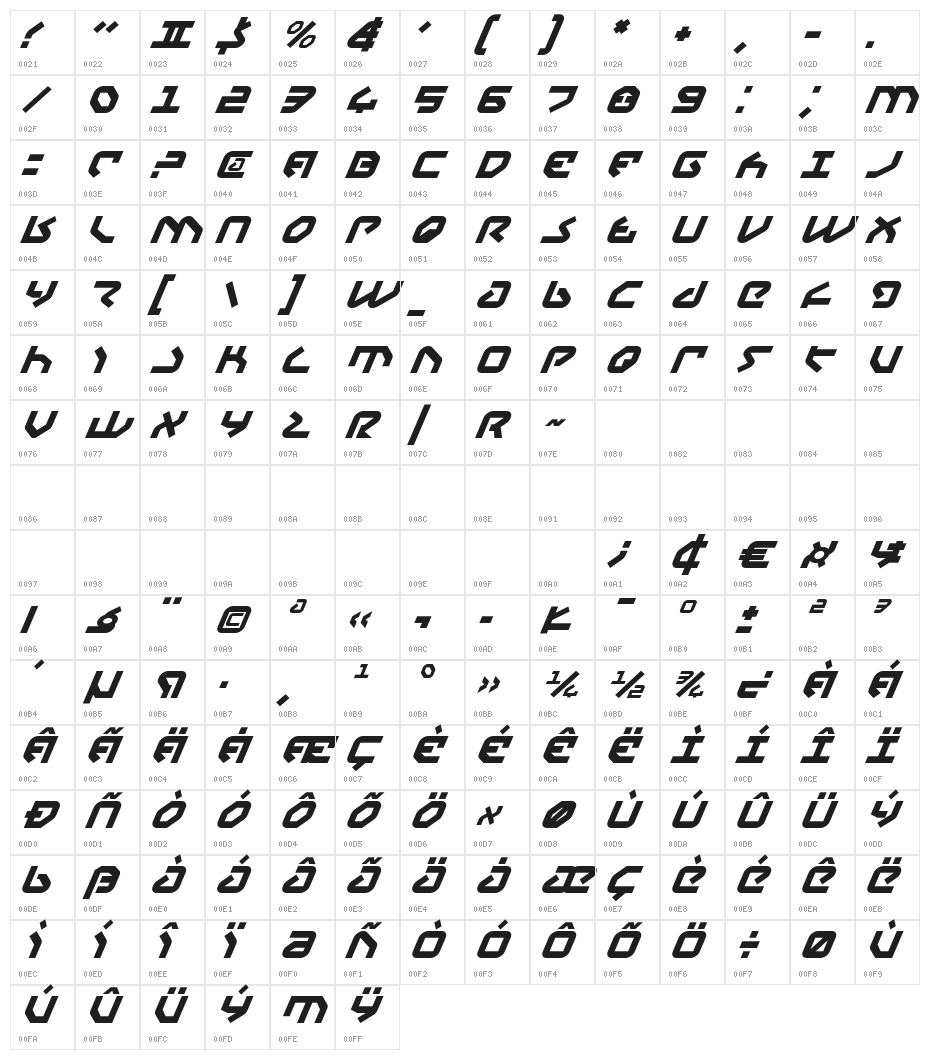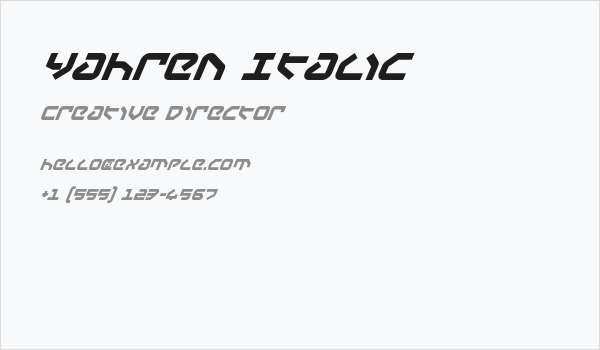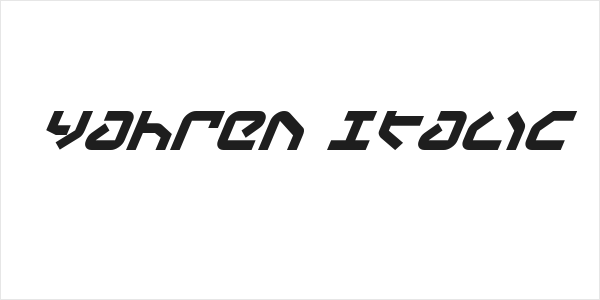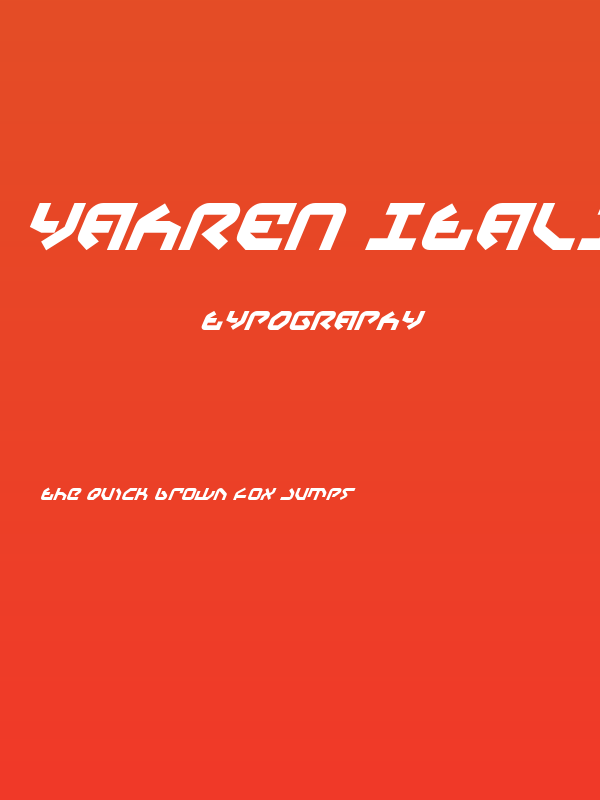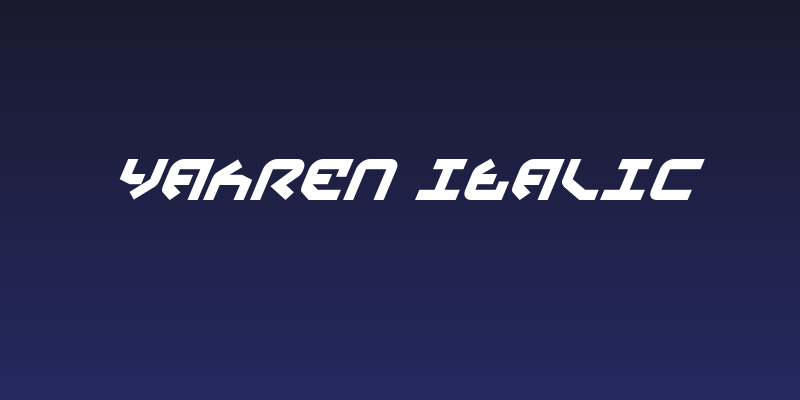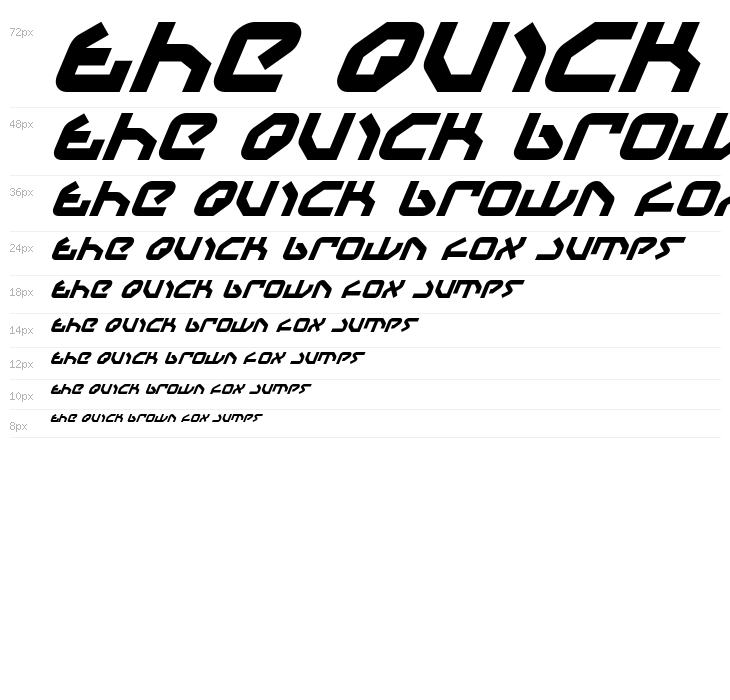
Yahren Italic Font
Yahren Italic Description
This font features a futuristic and angular design, characterized by its sharp edges and dynamic slant. The letters are bold and convey a sense of speed and modernity, making it ideal for projects that require a cutting-edge look. The uppercase and lowercase letters maintain a consistent style, with each character exhibiting a unique geometric flair. The numbers and special characters follow the same design principles, ensuring uniformity across all text elements. The font's boldness and italic style enhance its visual impact, making it suitable for attention-grabbing headlines or branding materials.
| Proposed Projects | Ideal for sci-fi themed designs, technology branding, video game titles, and dynamic posters. |